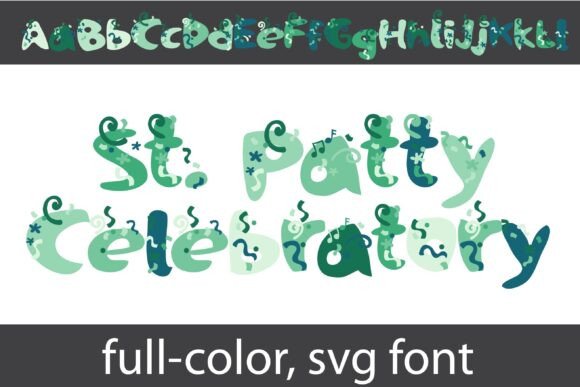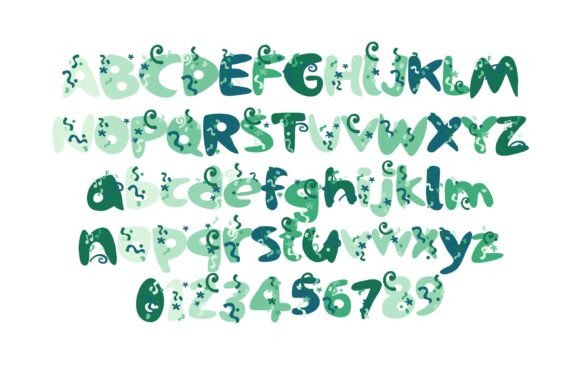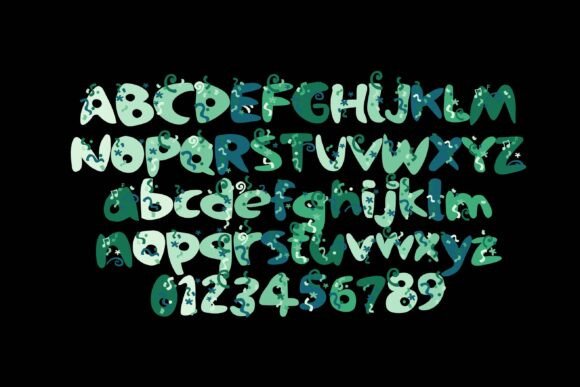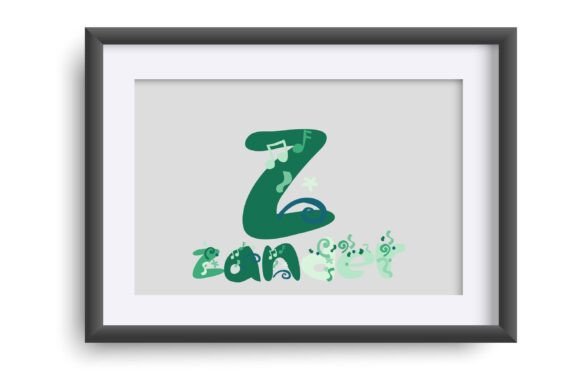
St. Patty Celebratory Font
This full-color font features a simple sans serif font surrounded with confetti in a green color palette. There is an alt version you can access through your system’s character map that contains additional colors of all the letters. This font works best for titles, displays, posters and more. Please note color fonts will show as black in non compatible programs. This font type is compatible with Silhouette Studio.